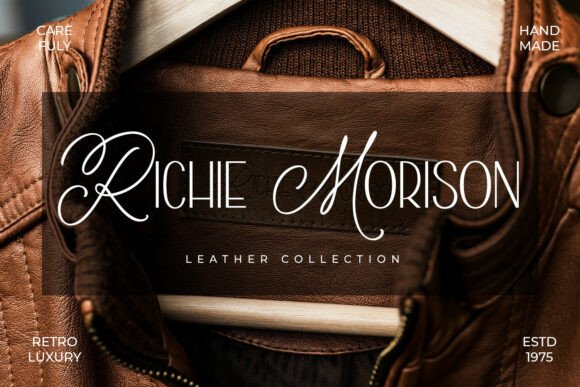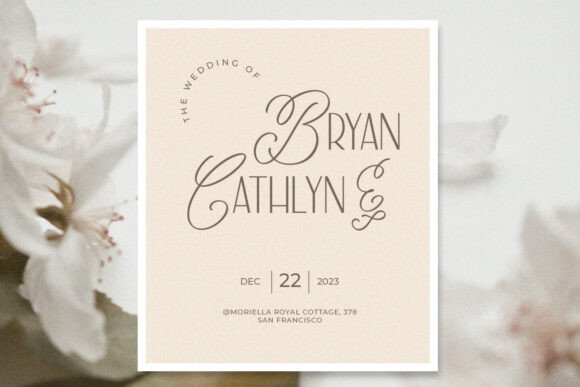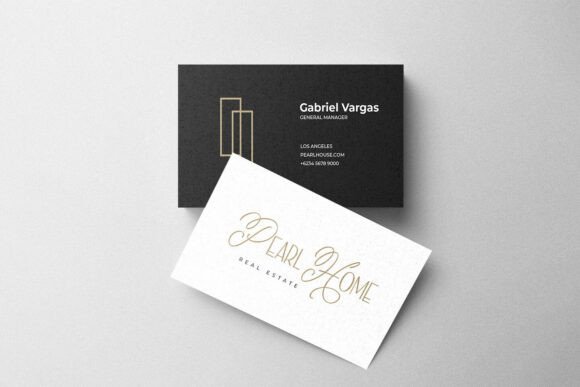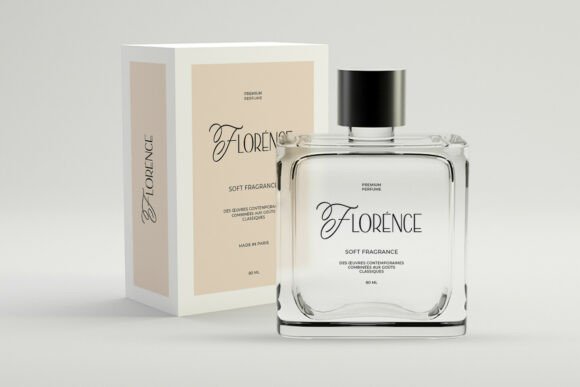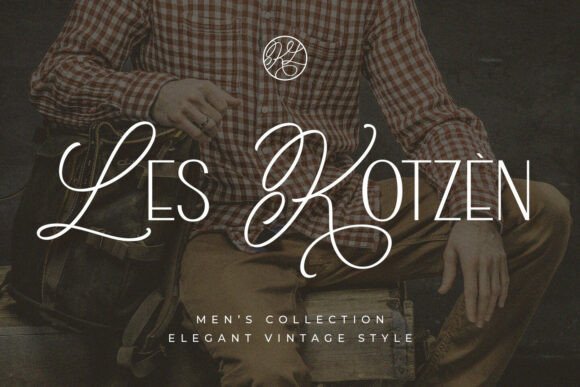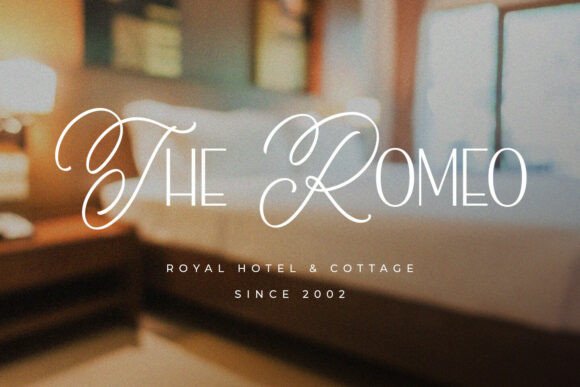
The Perfect Blend of Style and Elegance: Esmerald Font
Have you ever stumbled upon a font that just screams ‘use me’? That’s exactly what happened to many designers when they laid eyes on the Esmerald Font. Its unique blend of sans serif and calligraphy elements makes it an instant head-turner, begging to be used in the most creative ways possible.
Designed to make a statement, the Esmerald Font is perfect for luxury branding, packaging, and other high-end design projects. Its versatility makes it a valuable tool for designers looking to add a touch of sophistication and elegance to their work. Whether you’re creating a logo, designing a t-shirt, or crafting a book cover, the Esmerald Font is sure to elevate your design game.
Esmerald Font Key Features
- Font Family: Esmerald, Esmerald Bold, Esmerald Italic, Esmerald Bold Italic
- Unique Characteristics: Hand-drawn, elegant, and sophisticated design with a touch of luxury; perfect for high-end branding, luxury goods, and premium packaging
Esmerald Font Review
Overall, I think the Esmerald Font is a decent choice for designers. There are some features that make it shine. ✨ For instance, the unique blend of vintage and modern styles gives it a timeless feel. The font’s versatility is also impressive, making it suitable for various projects, from elegant invitations to bold headings. Additionally, the font’s legibility is quite good, especially at larger sizes.
However, there are some limitations that might make you think twice. ⚠️ One major issue is the font’s lack of consistency across different font sizes. At smaller sizes, the font can become too thin and hard to read. Furthermore, the font’s support for certain languages is limited, which might be a problem for designers working on multilingual projects.
Here are some specific pros and cons:
- Unique blend of vintage and modern styles
- Highly versatile
- Good legibility at larger sizes
- Lack of consistency across different font sizes
- Limited support for certain languages
Overall, I’d say the Esmerald Font is a solid choice for designers who want a unique and stylish font for their projects. However, it’s essential to be aware of its limitations and consider them when making your decision.
For the best results, use Esmerald Font in conjunction with high-quality images and a clear design concept.
Experiment with different font sizes and colors to create visual interest and emphasis.
Esmerald Font is ideal for:
- Designing luxury or high-end products.
- Creating invitations or event materials.
- Developing brand identities or logos.
Alternatives to Esmerald Font for Designers
Open Sans is a popular sans-serif font that is highly legible and versatile. It’s suitable for both digital and print designs. When to use: Headings, body text, and titles in modern and minimalist designs. Comparison: Esmerald Font has a more elegant and luxurious feel, while Open Sans is more straightforward and clean-cut.
Lato is a modern sans-serif font that is highly readable and versatile. It’s perfect for digital designs, especially for web and mobile applications. When to use: Headings, body text, and titles in modern and tech-related designs. Comparison: Lato has a more modern and sleek feel compared to Esmerald Font’s elegant and luxurious vibe.
3. Merriweather
Merriweather is a classic serif font that is highly legible and elegant. It’s suitable for both digital and print designs. When to use: Headings, body text, and titles in traditional, classic, and academic designs. Comparison: Merriweather has a more traditional and formal feel compared to Esmerald Font’s modern and luxurious vibe.